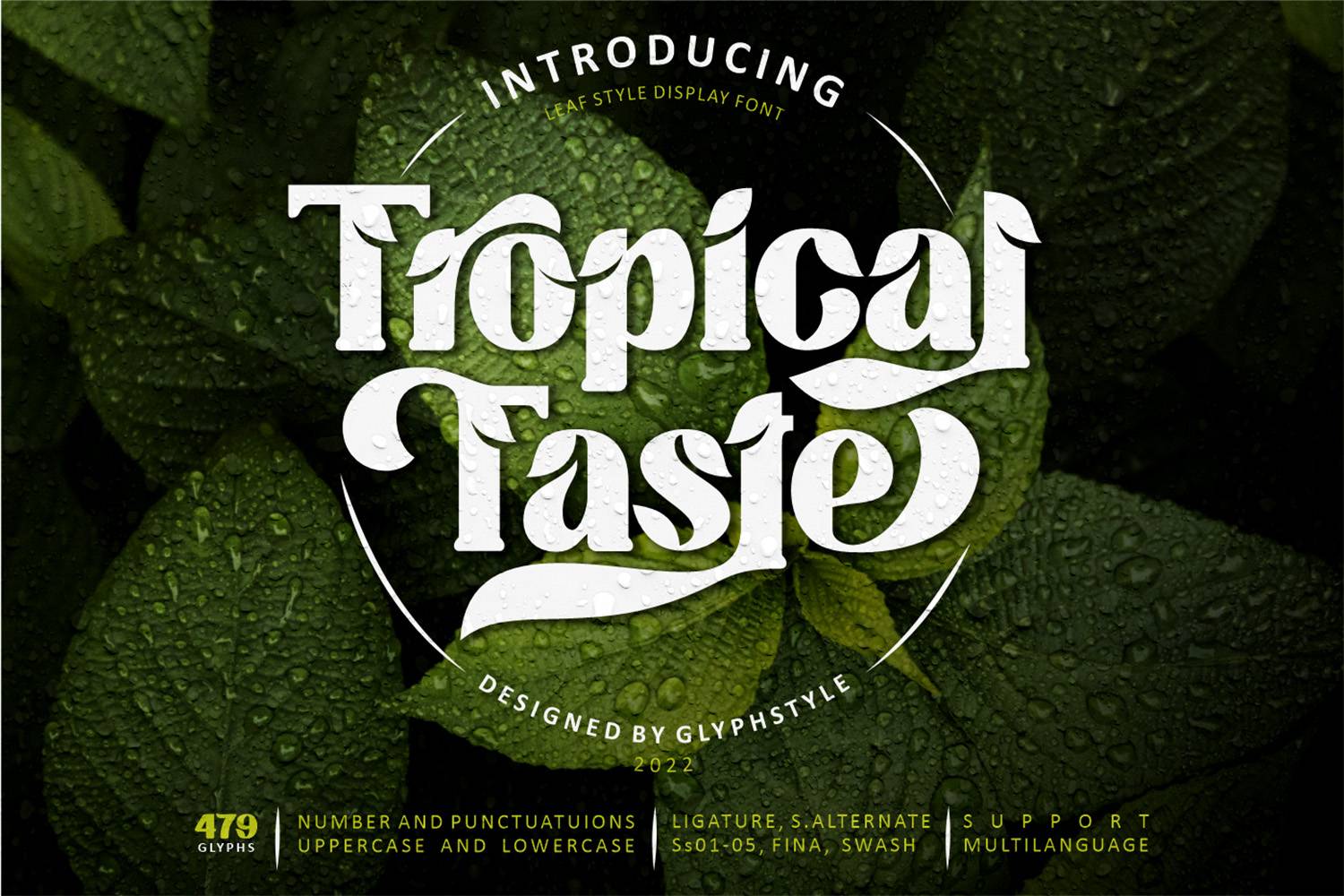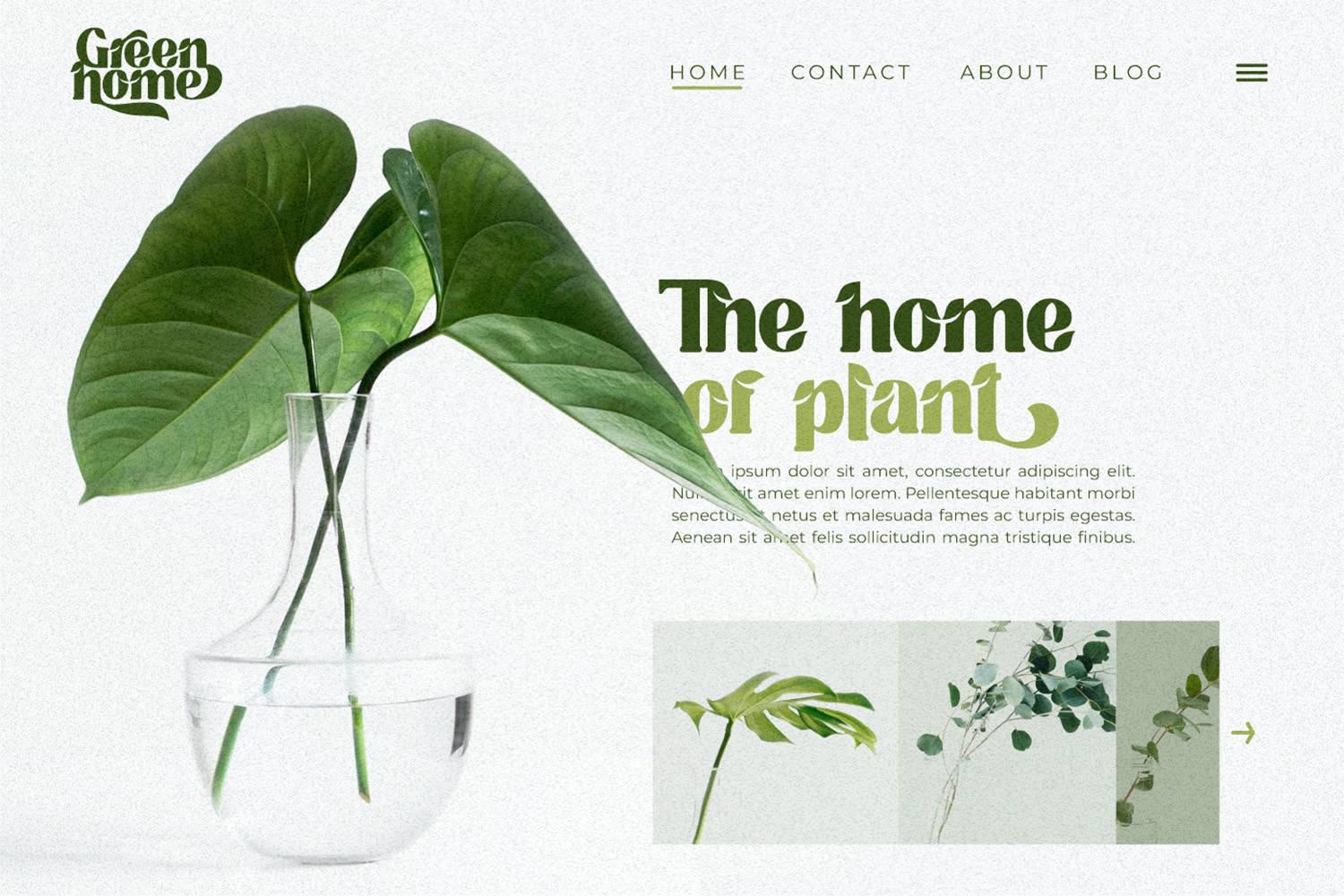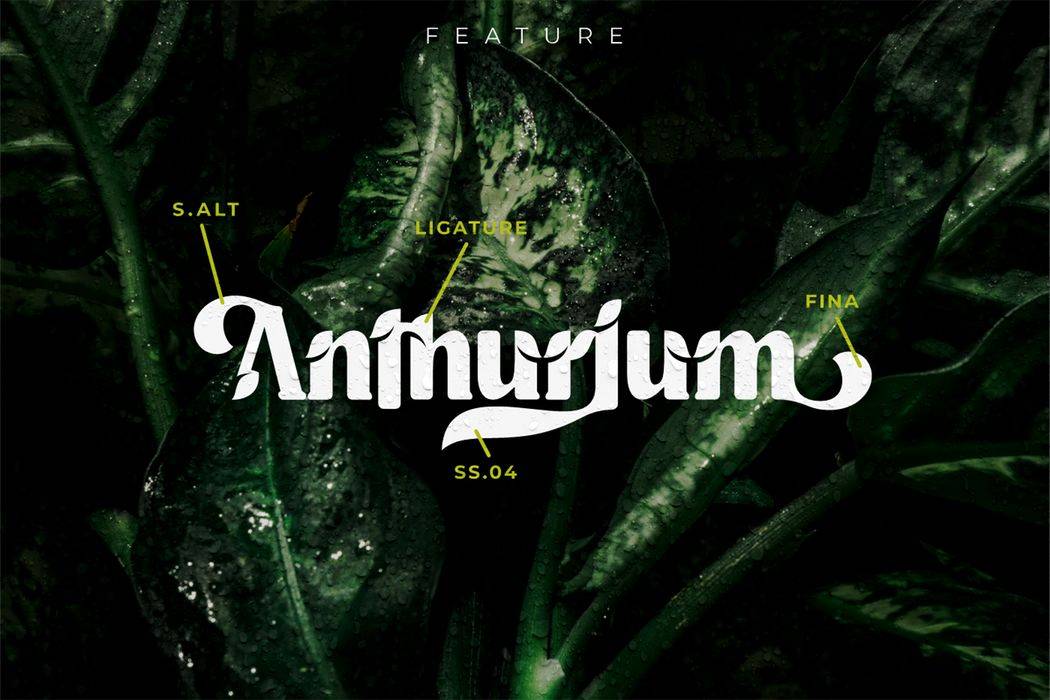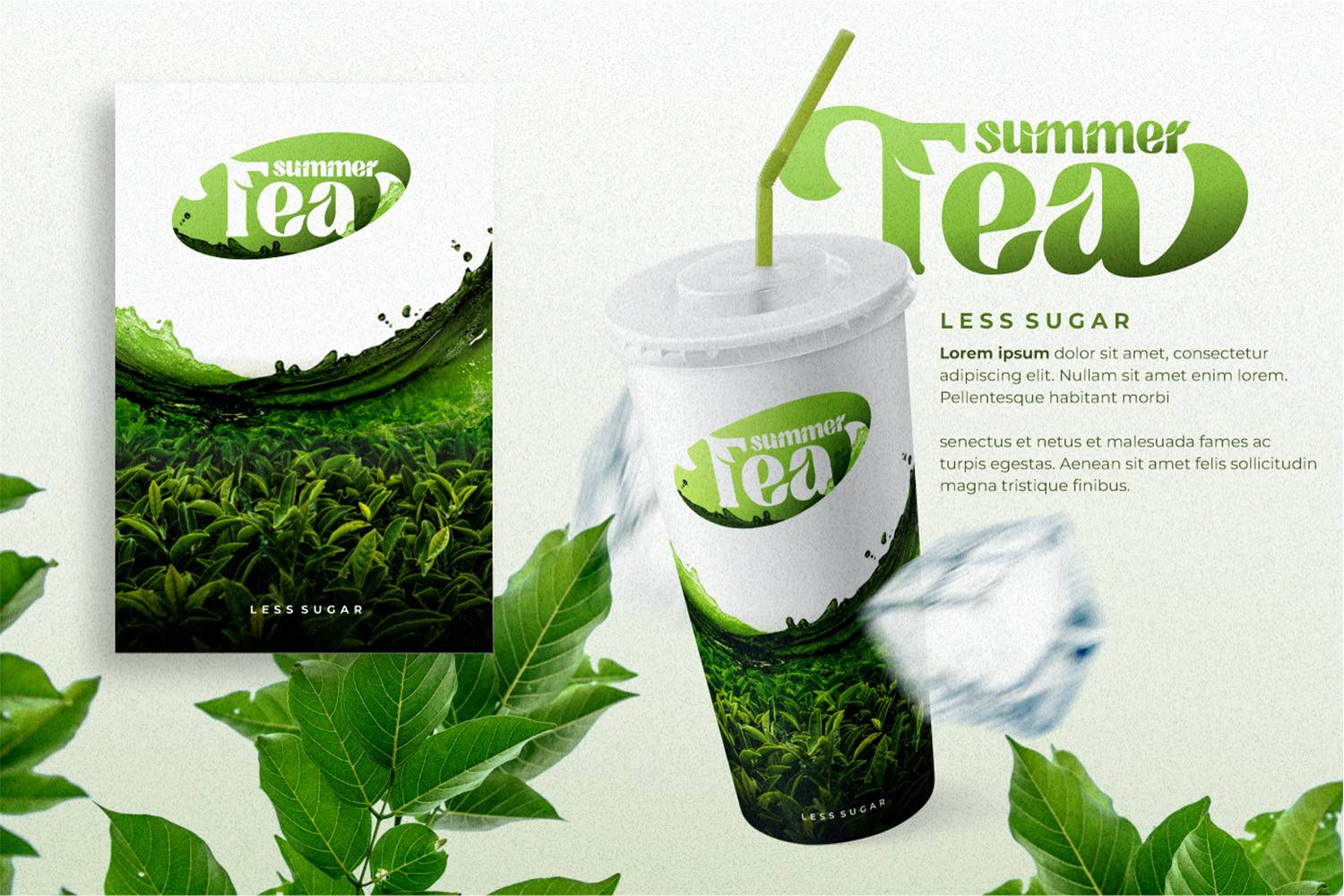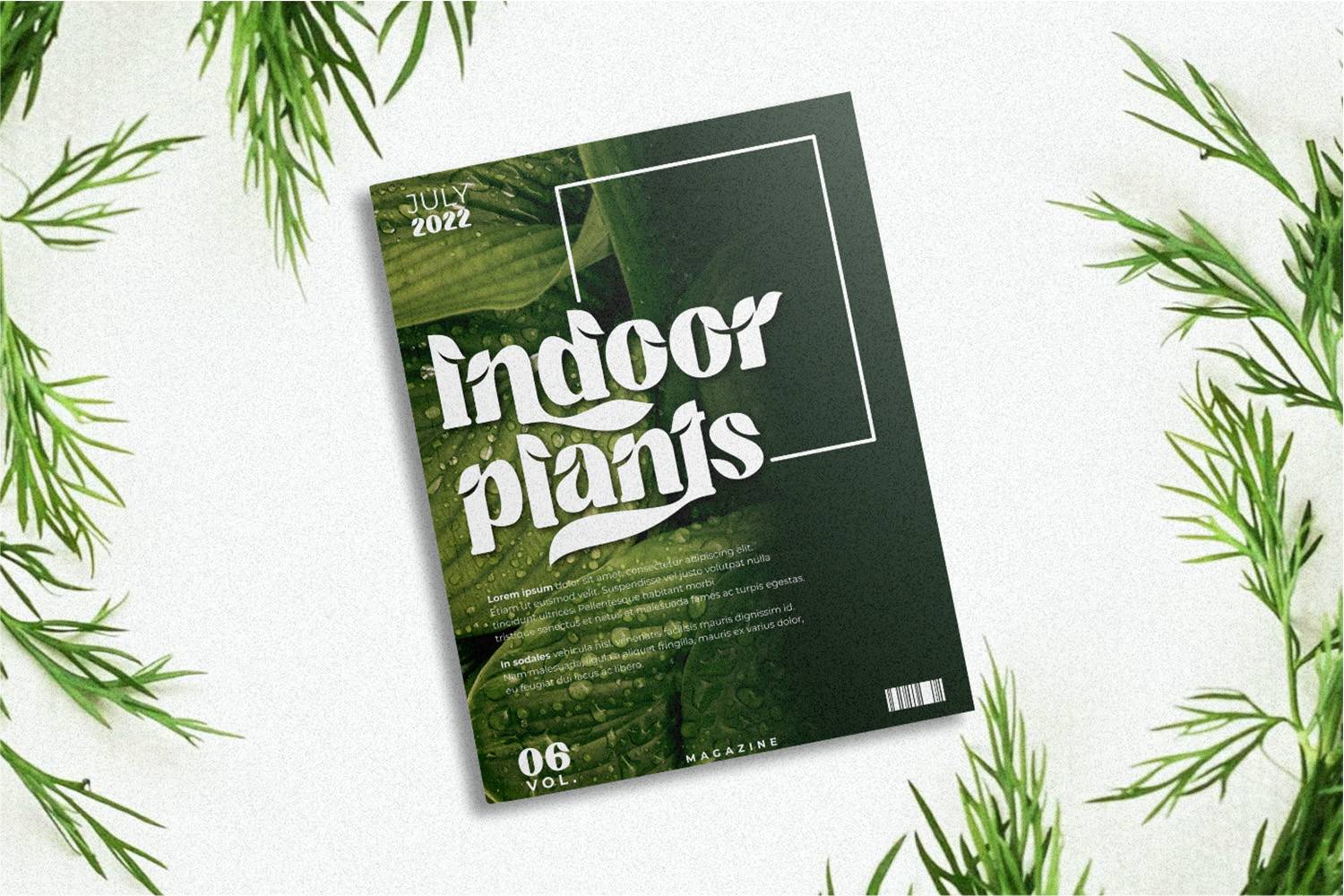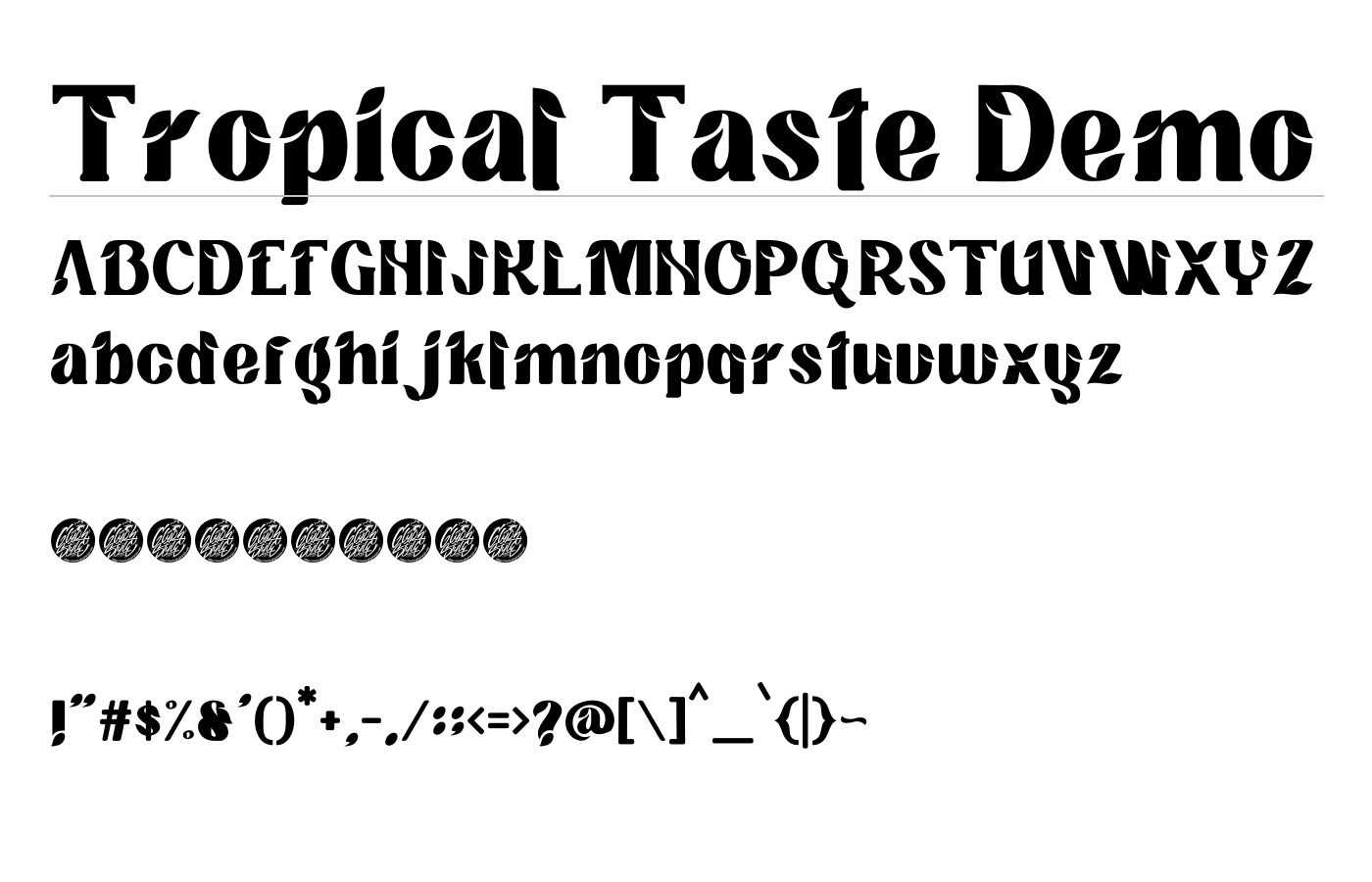
Tropical Taste is a bold, decorative serif font with a playful tropical flair, characterized by strong contrast between thick and thin strokes and unique leaf-like cutouts that add charm and visual interest. Its upright, sturdy letterforms with high x-height make it great for eye-catching headlines and logos, especially for brands or projects invoking a fun, exotic, and lively vibe. This font works best in creative packaging, posters, and branding that wants to communicate freshness and a vibrant, tropical personality.
Tropical Taste Font
About Tropical Taste Font
| Font family | Tropical Taste Font |
| Designer | Glyphstyle |